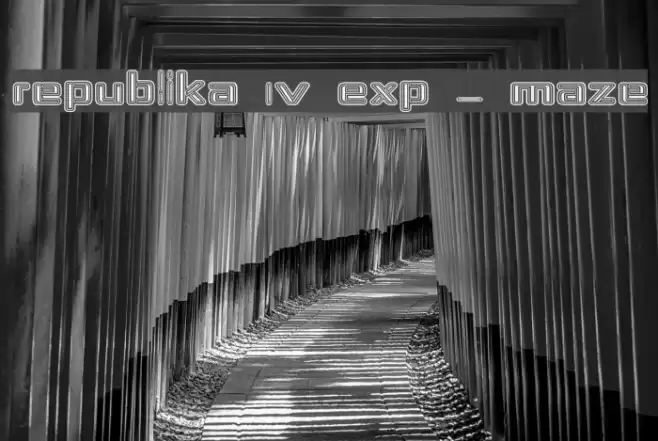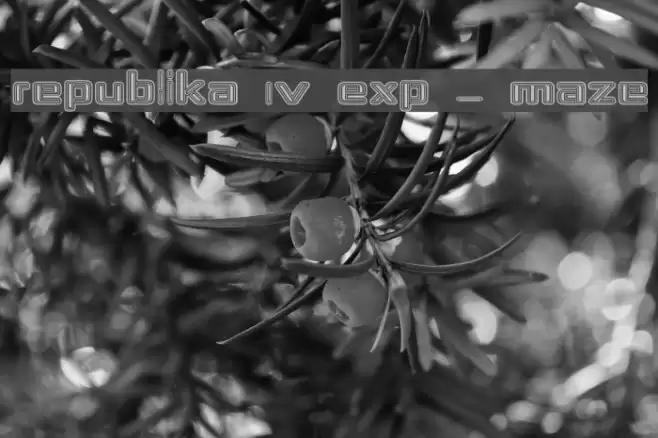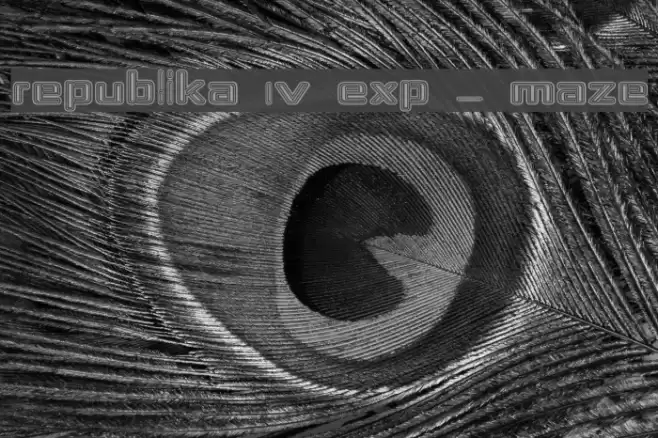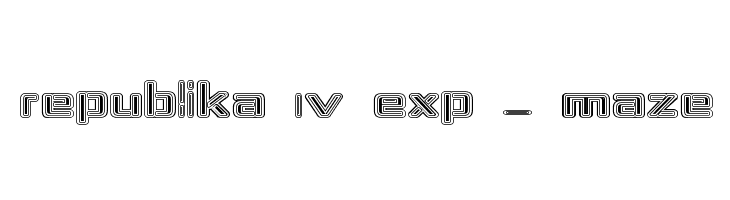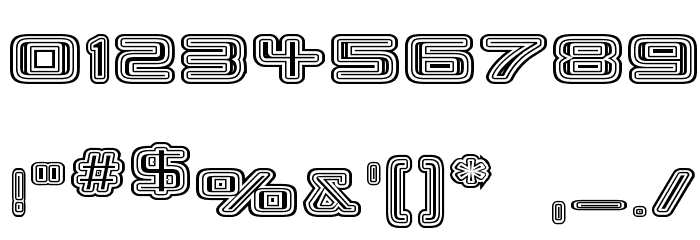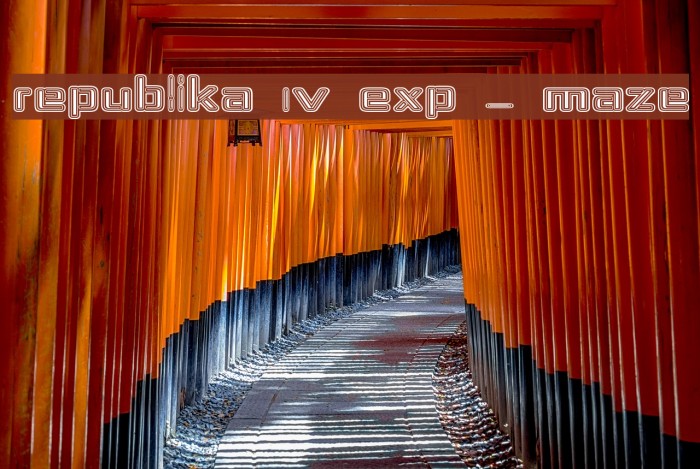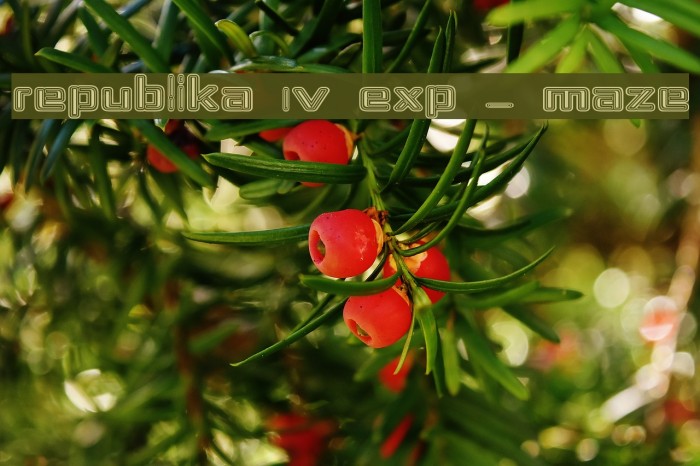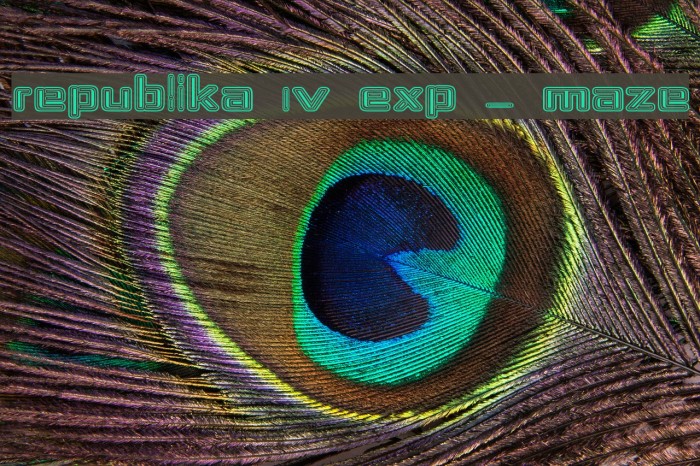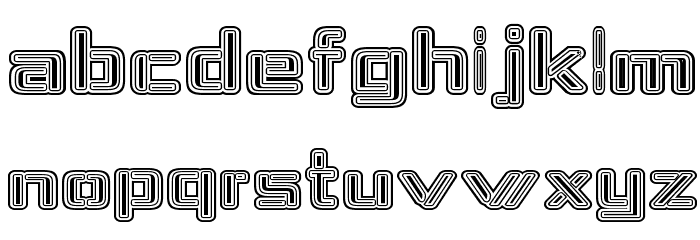
Republika IV Exp - Maze Font
Republika IV Exp - Maze Description
This font features a unique, maze-like design with bold, interconnected lines forming each character. The letters are outlined with multiple layers, creating a three-dimensional effect that is both striking and modern. The geometric shapes and consistent line thickness give it a structured and futuristic appearance. The font maintains uniformity across uppercase, lowercase, numbers, and special characters, making it versatile for various design needs. Its intricate pattern is eye-catching and ideal for projects that require a standout typographic element.
A bold, maze-like font with interconnected lines and a three-dimensional effect from Uncategorized fonts.
- Proposed Projects: Ideal for futuristic designs, tech branding, video game titles, and creative posters.